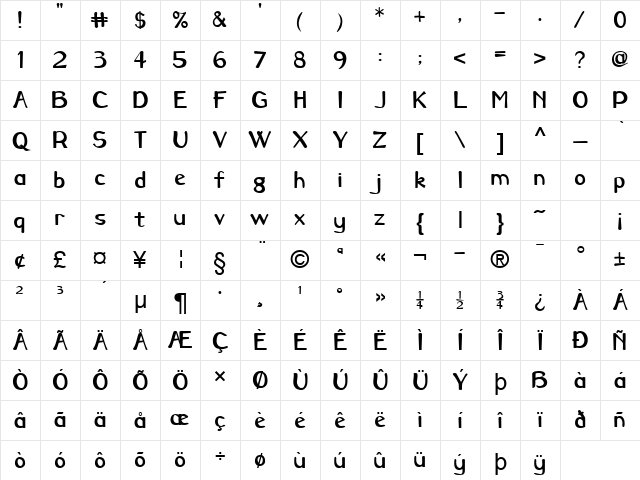
Savoy Normal
Savoy Family
Savoy Normal
Complete Savoy Normal glyph index. Displaying only characters natively supported by Savoy Normal font.
Design Context for Savoy
Savoy is a composed and adaptable typeface that performs quietly and consistently across a wide range of design contexts.